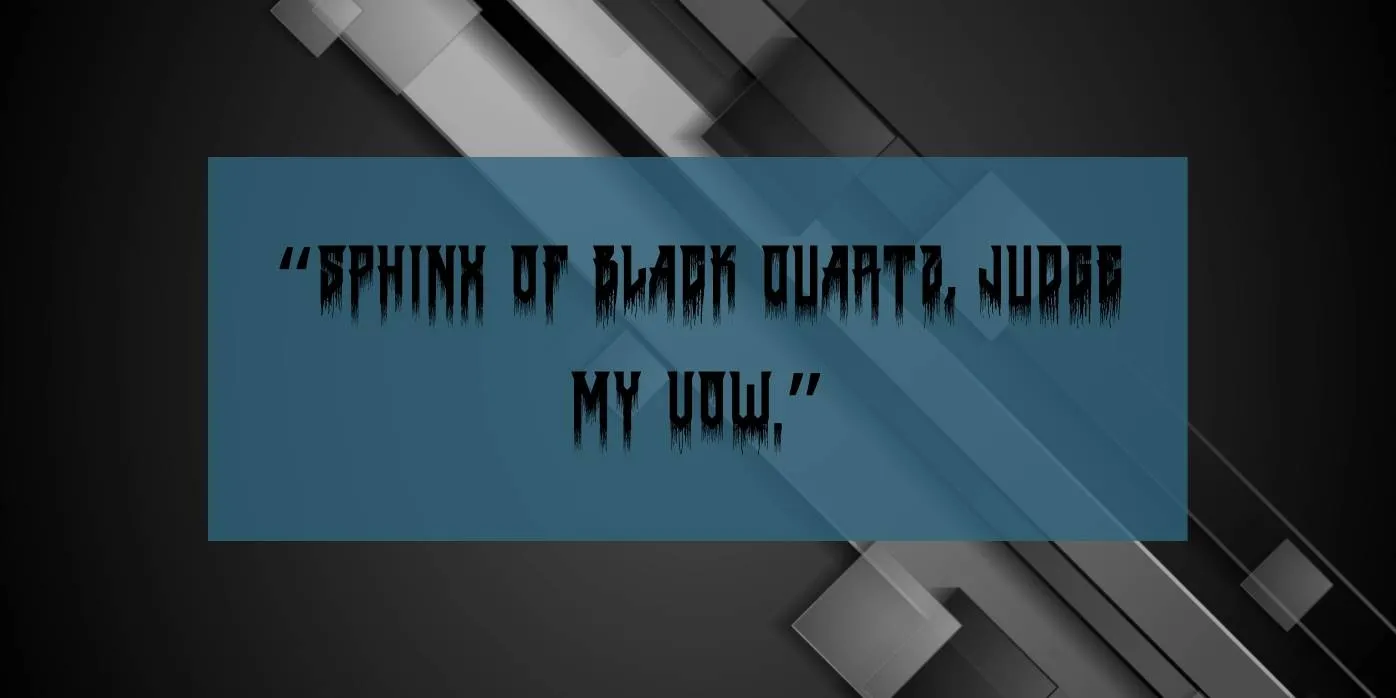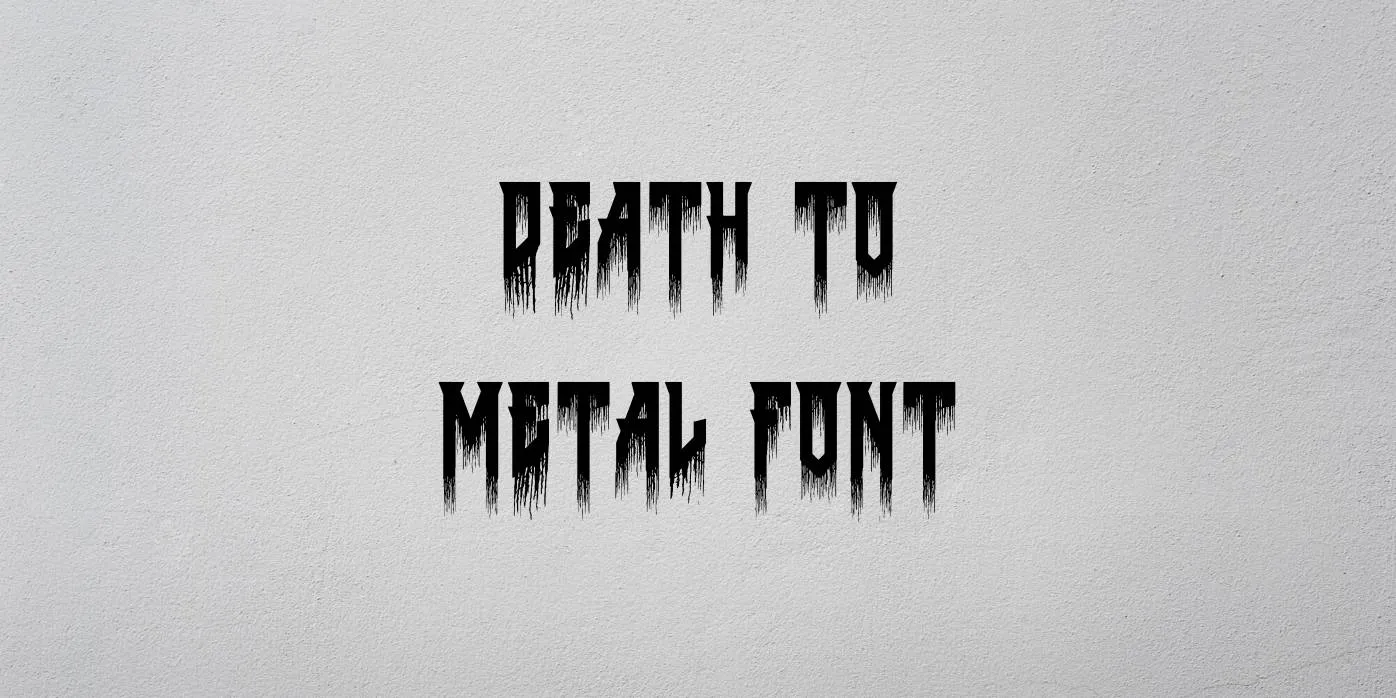
Death To Metal Font
Here, we are going to introduce a stylish font named Death to Metal Font. This family belongs to the fancy font family. This typeface was designed by Font Monger. It is a free font and is available for both personal and commercial use.
The Death to Metal Typeface has been created with unique characters. The kerning and line spacing have been improved for better readability. This typeface supports multiple languages. You can also use its generator tool.